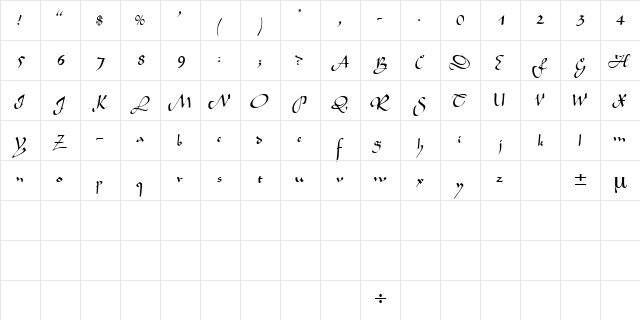
SemiaScriptSSK Regular
Design Context for SemiaScriptSSK Typeface
SemiaScriptSSK flows with the natural rhythm of handwritten lettering, making it ideal for designs that call for warmth and personal expression.
Font Pairing: Combine SemiaScriptSSK with a simple geometric sans for maximum contrast — the tension between flowing curves and clean structure is a classic typographic pairing.
Pro Tip: Pair SemiaScriptSSK with a clean sans-serif for supporting text. The contrast between fluid script and geometric structure creates an elegant typographic hierarchy.